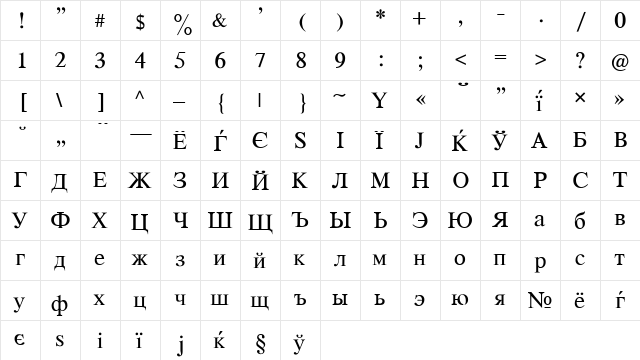
CyrillicTimes Roman
Design Context for CyrillicTimes Typeface
CyrillicTimes is a composed and adaptable typeface that performs quietly and consistently across a wide range of design contexts.